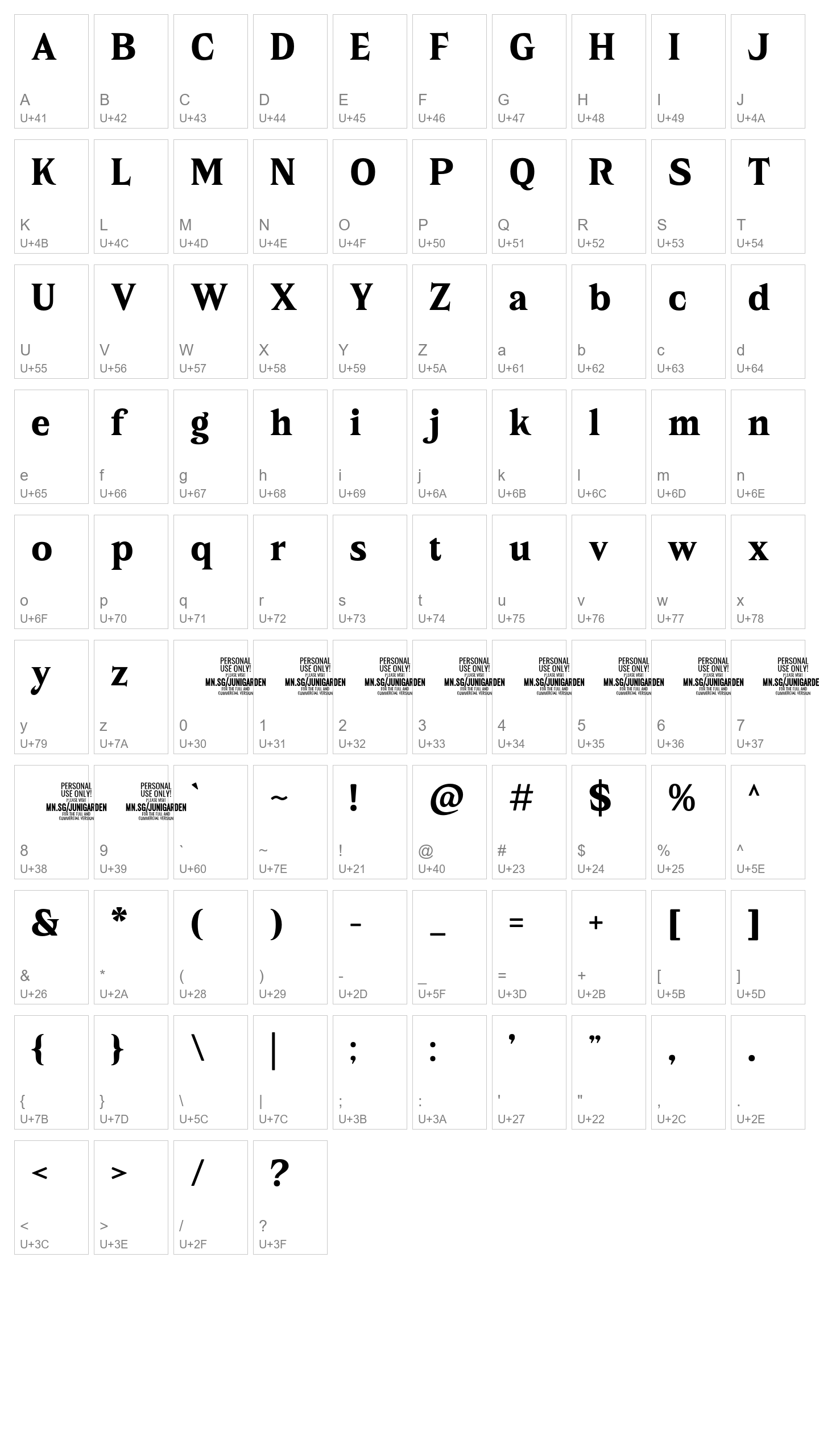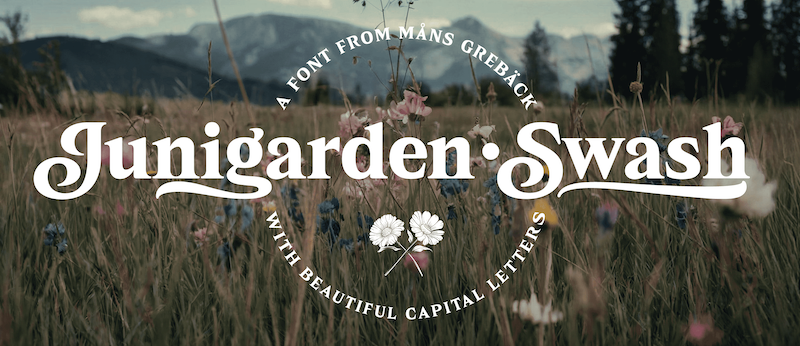
Junigarden Swash
Junigarden Swash evokes a warm, nostalgic feeling, blending vintage elegance with flowing swashes that add a decorative flair.
The font strikes the perfect balance between boldness and delicacy.
Use underscore _ anywhere in a word to make a swash.
Pri_nce
Multiple underscores make different swashes:
Am_______ore